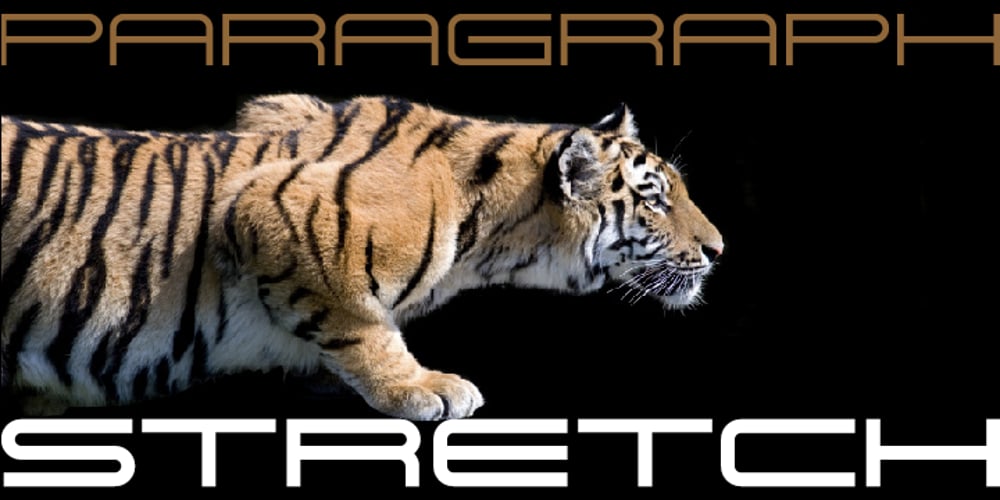
Paragraph Stretch
Paragraph Stretch font
Paragraph Stretch Font Family was designed by Jan Schmoeger and published by Paragraph. Paragraph Stretch contains 5 styles and family package options. When merely “extended” just would not do, here is Paragraph Stretch™: a super extended or elongated geometric display typeface. It is a typeface with an unicase effect: the capitals and lower case fit the same height and a similar width, so they are interchangeable: fancy a round “W” in all caps? Use the lower case. Want a straight “x” in lower case? Use the cap. And so on. Designed for use at larger sizes for logotypes, short titles or headings. It supports Western plus Nordic, Eastern European and Turkish languages.